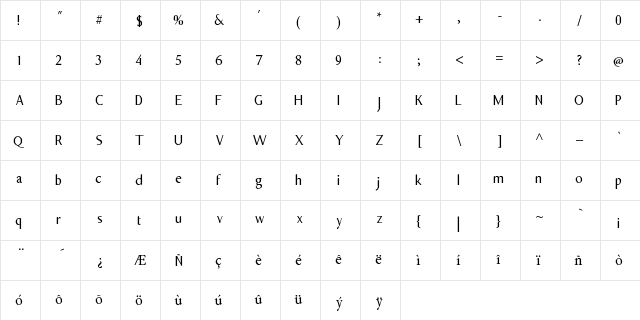
Opirus Semi-Serif Regular
Design Context for Opirus Semi-Serif Typeface
Opirus Semi-Serif brings classic typographic sensibility to the table — its serifs and measured letterforms reflect centuries of print heritage.
Pro Tip: Set Opirus Semi-Serif with slightly loose tracking in headlines to let each letterform's detail read clearly at display sizes.